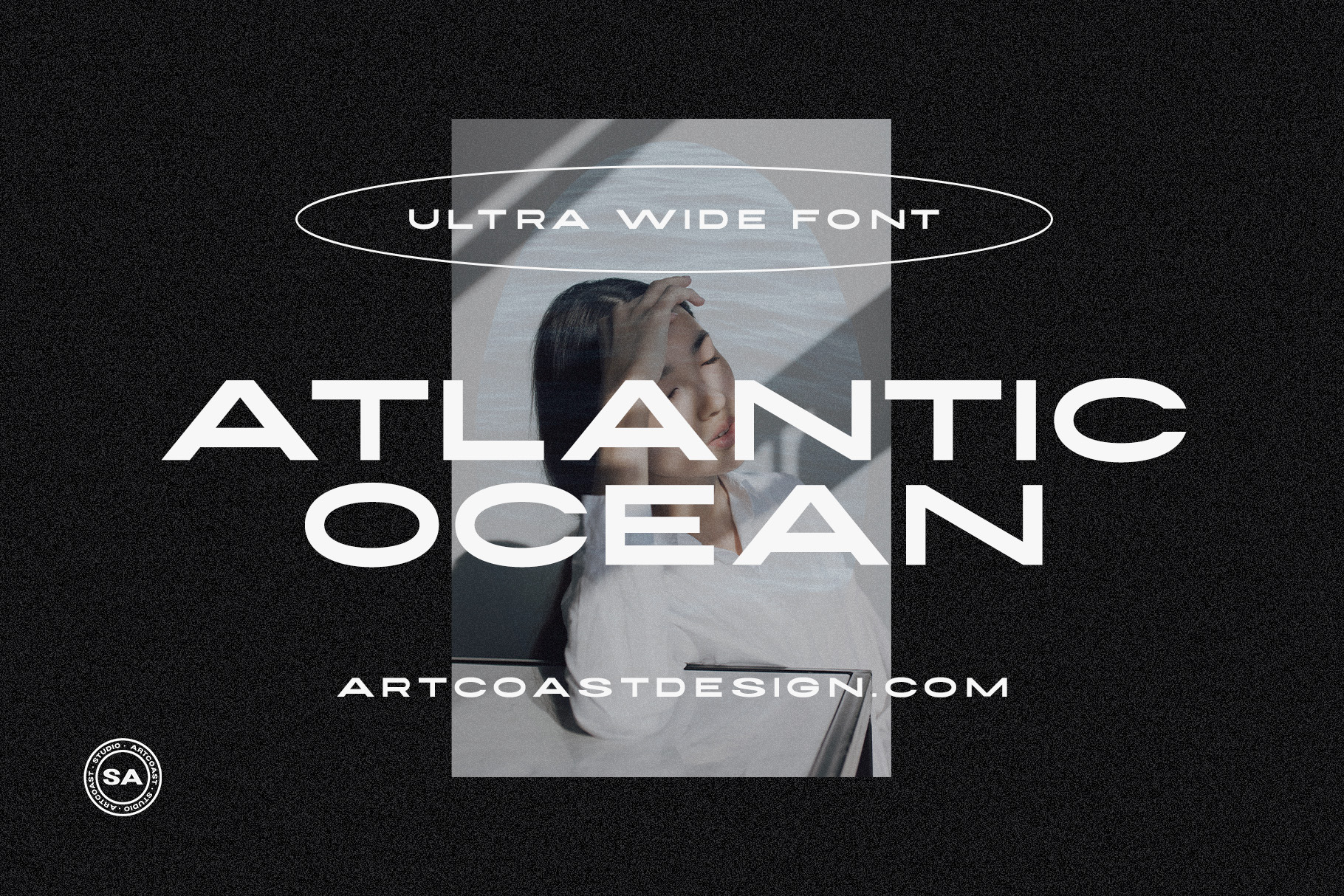
Looking for a stylish new font to add to your design repertoire? Say hello to "SA Atlantic Ocean"! This extra wide sans serif font is perfect for creating chic and sophisticated designs. Whether you're working on a fashion magazine layout, designing a new logo or branding collateral, or crafting invitations or quotes, "SA Atlantic Ocean" will give your project that touch of elegance. With its clean lines and timeless appeal, this font is sure to become a favorite!
- all caps letters
- numbers
- punctuation